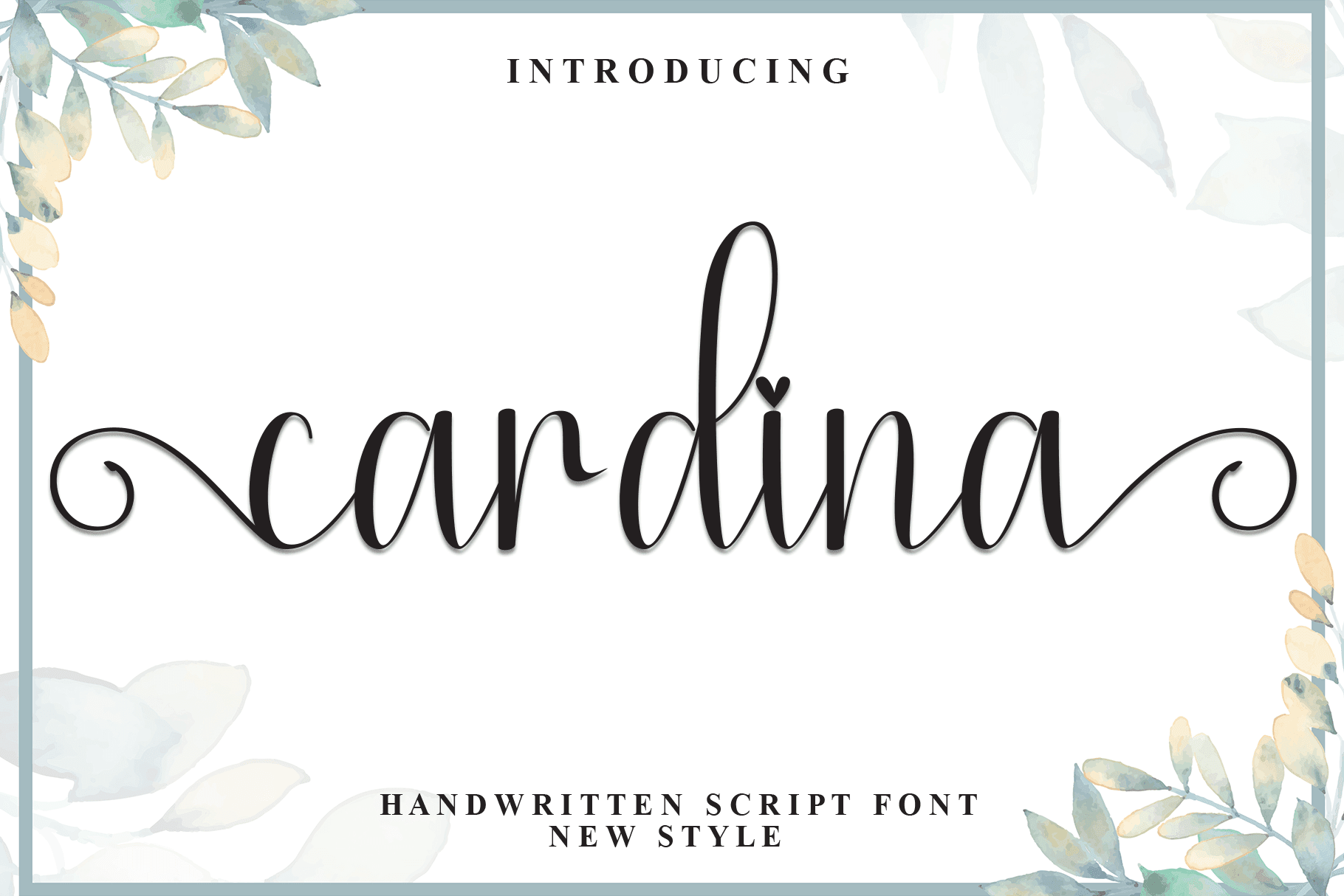
Cardina Font: ๐ Check out Cardina Font now! Explore this ๐ script fonts and claim your ๐ free download here. Let's start crafting together! ๐ Introducing a charming and approachable handwritten display font that promises to add a spark of delight...